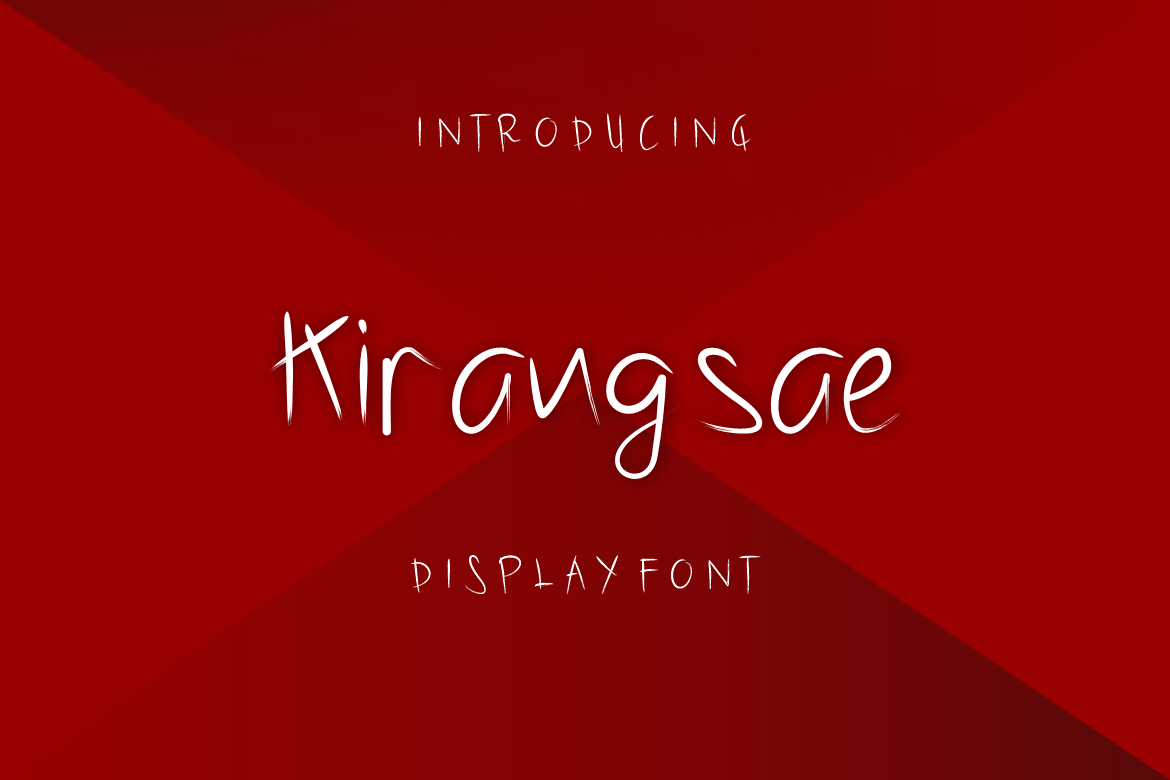
Kirangsae Font
Introducing our new product Kirangsae Font - Modern Font
Kirangsae Font - Modern Font is a bold and authentic display font. The font is suitable for any branding project like logo, t-shirt printing, esport, and many more. outstanding in a wide range of contexts.